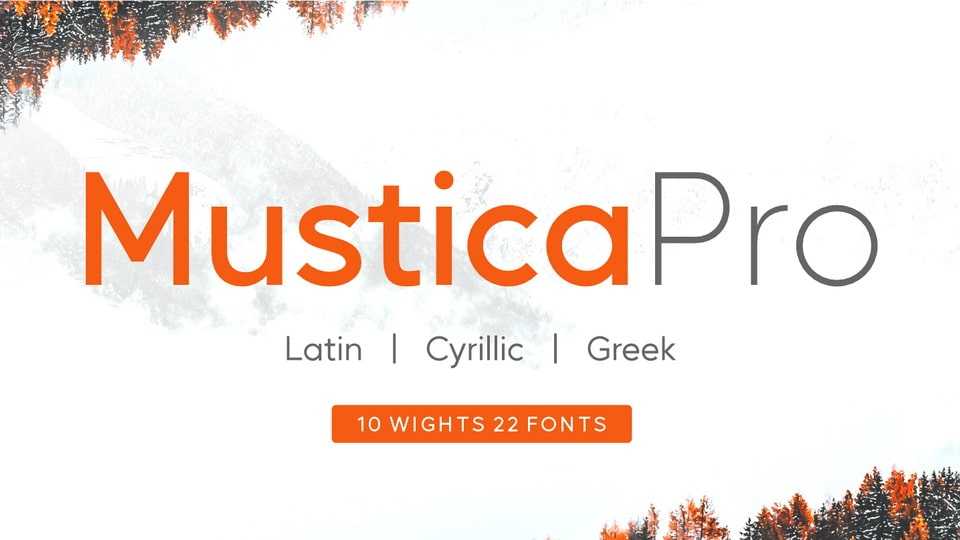
Download Mustica Pro font, a clean and geometric sans serif typeface that has a number of OpenType features and supports Latin, Cyrillic and Greek languages. In this regard, the Mustica Pro font was carefully crafted with optimal effort, to make it the most popular modern sans serif.
Designer: Alifinart Studio